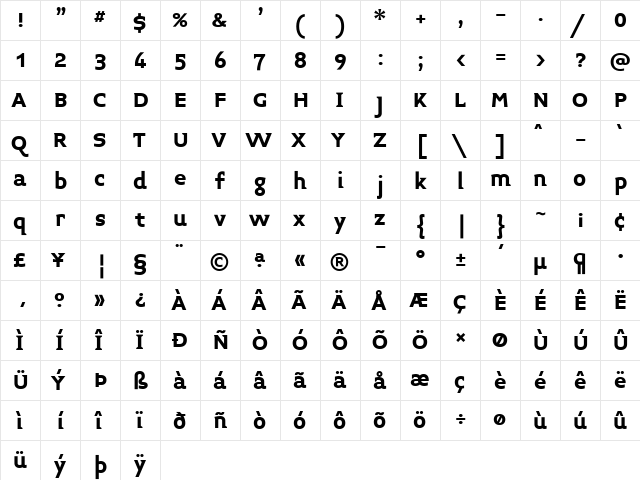
Midiet Serif Bold
| Foundry | YOFonts |
| Designer | Yamaoka Yasuhiro |
Design Context for Midiet Typeface
Midiet brings classic typographic sensibility to the table — its serifs and measured letterforms reflect centuries of print heritage. The heavy weight commands attention and anchors typographic hierarchies.
Pro Tip: Set Midiet with slightly loose tracking in headlines to let each letterform's detail read clearly at display sizes.